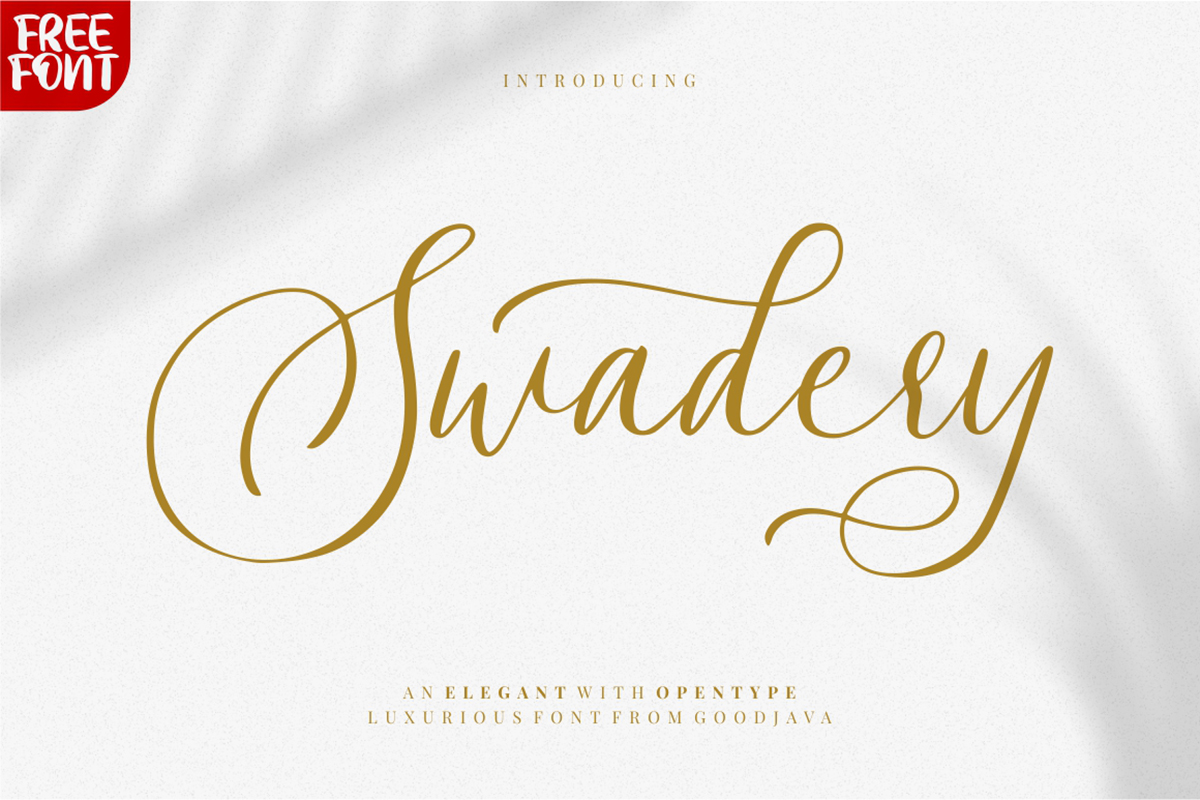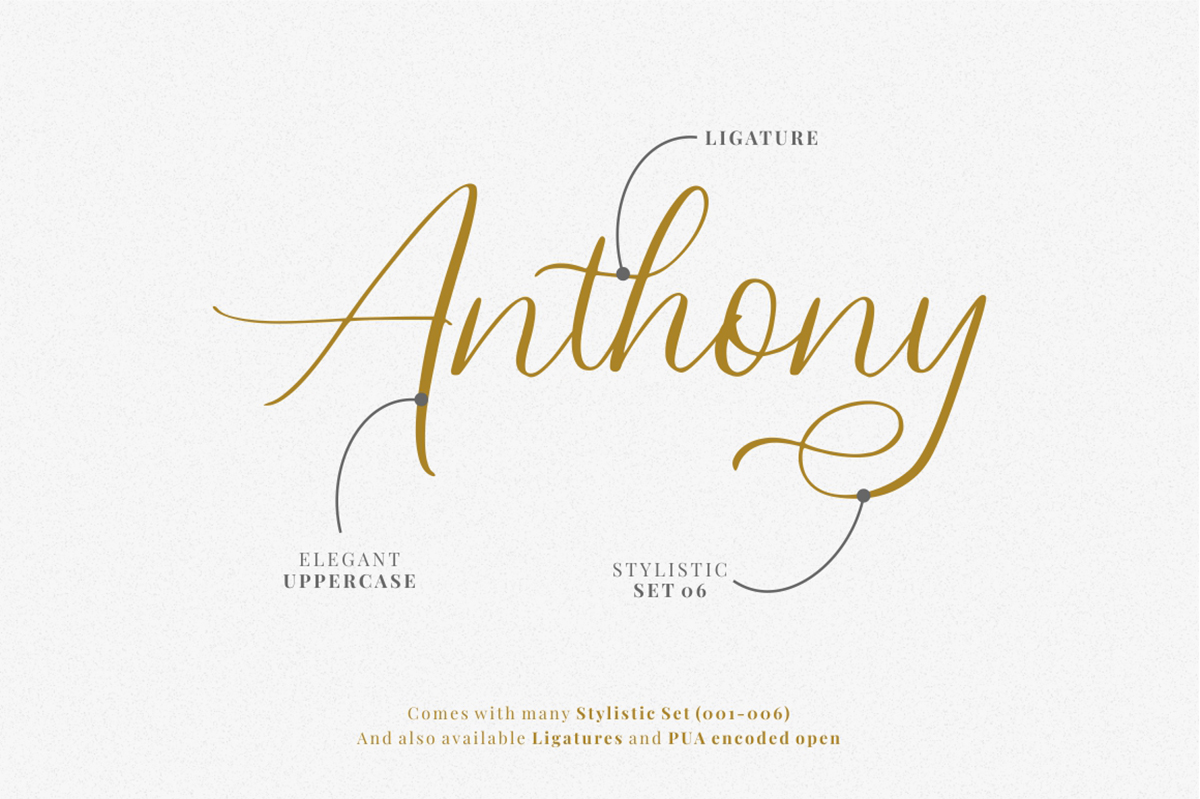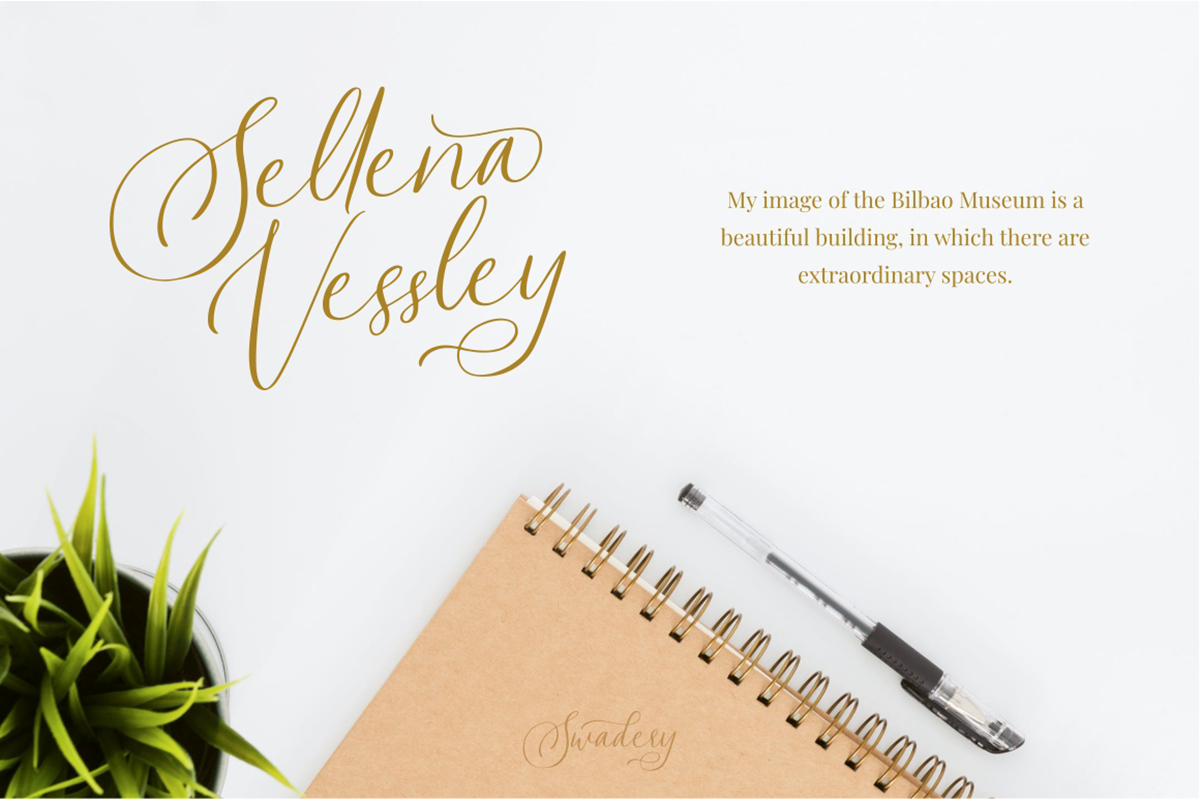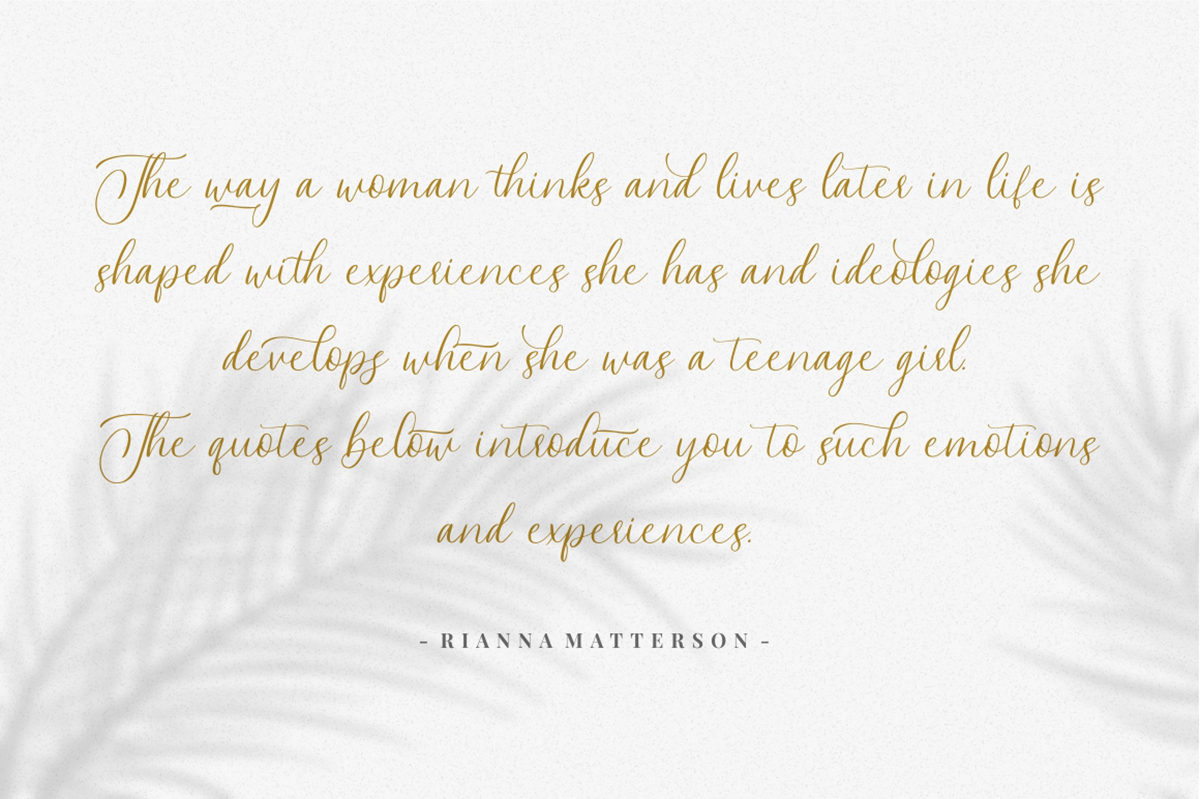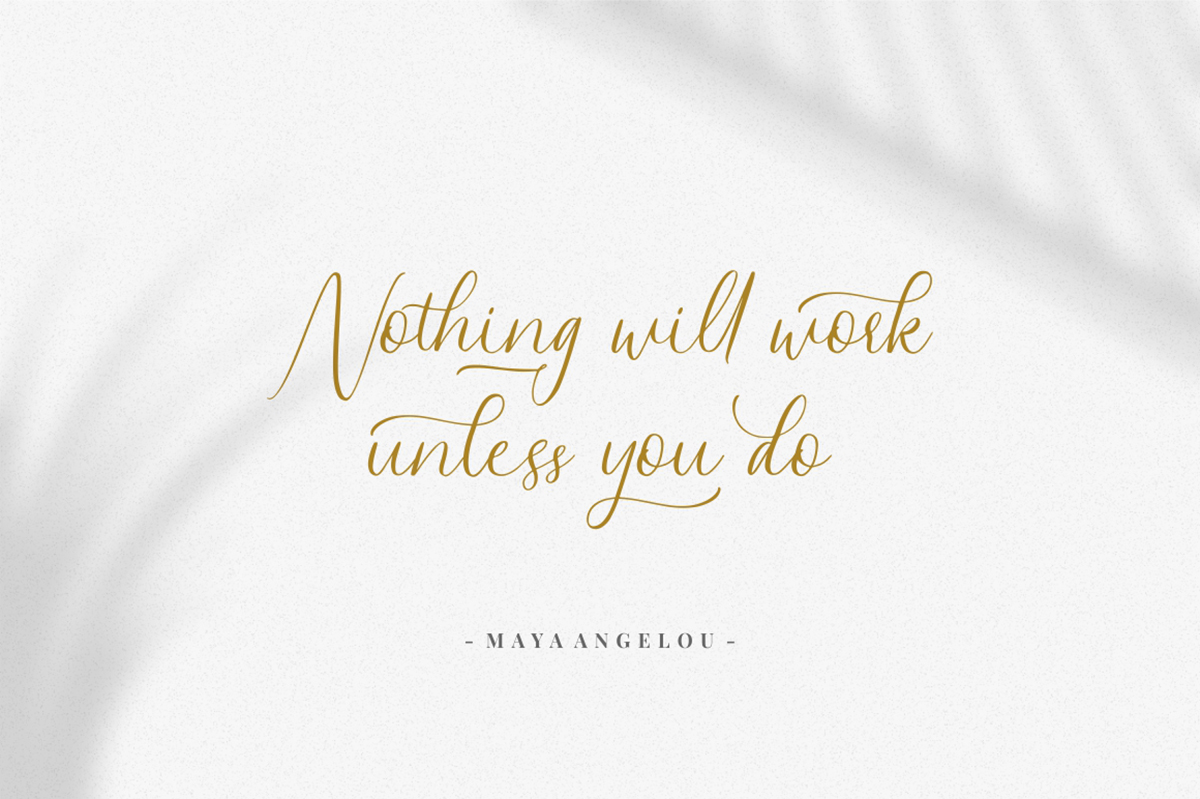
Swadery Free Font
Swadery Free Font is a natural & modern handwritten font. It’s perfect for logo, invitation, stationery, wedding designs, social media posts, advertisements, product packaging, product designs, label, photography, watermark, special events, or anything. This free typeface was designed by talented Good Java. If you like it don’t forget to check out the full version.